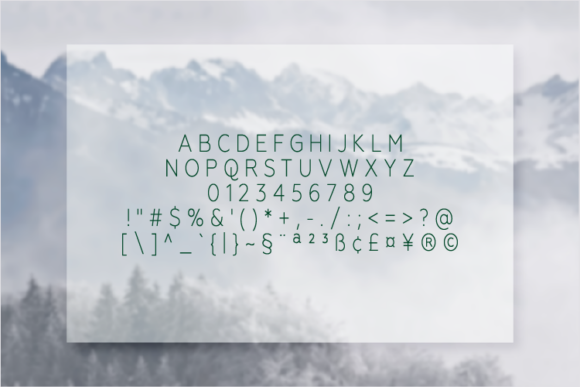
Unlocking Creativity with Allovoneue Light Font
Have you ever found yourself stuck in a design rut, searching for the perfect font to bring your vision to life? I know I have. There’s nothing quite like the thrill of discovering a new font that perfectly captures the essence of your project. For me, that moment came when I stumbled upon the Allovoneue Light Font – a fresh, geometric, sans-serif font family that has become a staple in my design arsenal.
Designed to evoke the spirit of 20th-century neo-grotesk fonts, Allovoneue Light Font boasts geometrical letterforms, sharp edges, and a subtle stroke contrast that makes it incredibly versatile. Whether you’re working on a magazine, poster, branding, or any other project, this font is sure to deliver. Its value lies in its ability to add a touch of sophistication and modernity to any design, making it a must-have for designers looking to elevate their work.
- Font Family: Allovoneue Light, Allovoneue Light Italic
- Unique Characteristics:
- Optimized for legibility in digital environments
- Subtle texture and organic feel
Allovoneue Light Font Review
Overall, I think the Allovoneue Light Font is a solid addition to any designer’s toolkit. ✨ Its clean and minimalist aesthetic makes it perfect for a wide range of applications, from branding to digital design. The font’s light weight gives it a sense of approachability and friendliness, making it great for use in user interfaces and other interactive experiences.
The Allovoneue Light Font also has a nice balance of legibility and style, making it easy to read even at small sizes. ✨ This is particularly important for digital design, where text is often displayed in small formats.
While the Allovoneue Light Font is a great choice for many projects, there are a few limitations to consider. ⚠️ One of the main issues is that the font can feel a bit too minimalist at times, which can make it difficult to use in situations where a lot of emphasis is needed.
- May not be suitable for use in situations where a lot of emphasis is needed
- May feel too minimalist in certain contexts
Despite its limitations, I think the Allovoneue Light Font is a great choice for many designers. Its clean aesthetic and balance of legibility and style make it a versatile and reliable option. With a little creativity and attention to detail, I think this font can be used to create some truly amazing designs.
Allovoneue Light Font is perfect for:
- Quotes and testimonials
For the best results, use Allovoneue Light Font with a clean and minimalist design aesthetic.